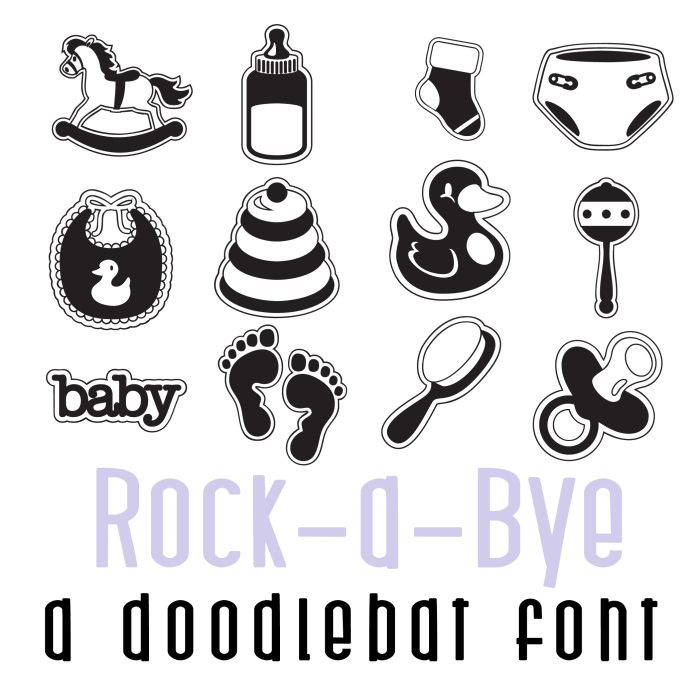
This doodlebat font features 26 adorable newborn baby imagery! Perfect for nurserys, teachers, gifts, decor, scrap book pages, planner stickers and more!